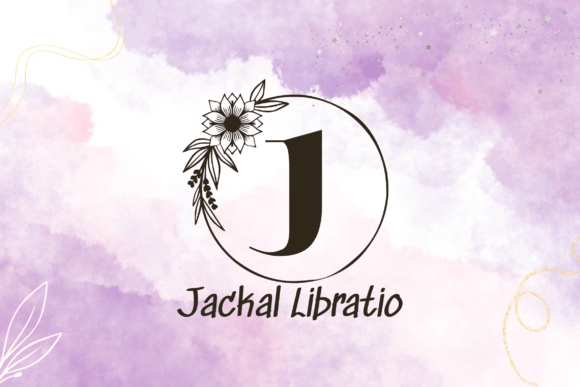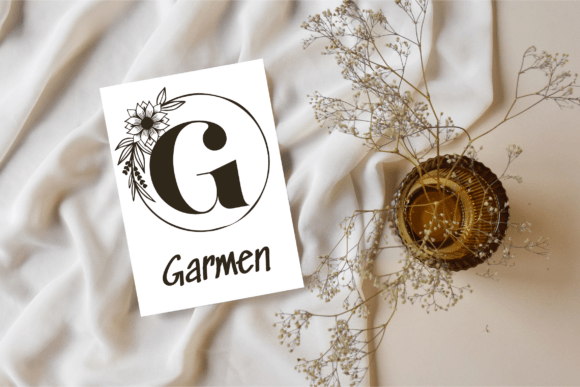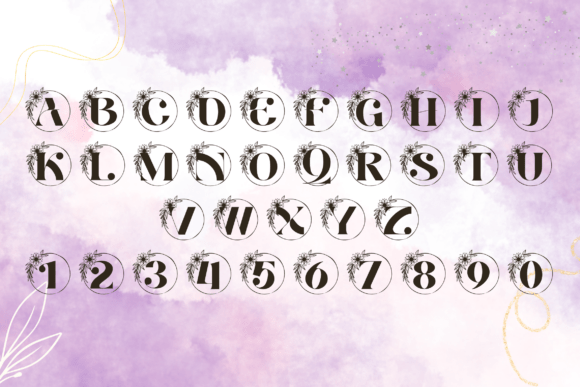
Aventine Floral Monogram Font: Elevate Your Designs with Timeless Elegance
In the world of typography, few fonts manage to capture the essence of luxury and sophistication as effortlessly as the Aventine Floral Monogram Font. This exquisite decorative font seamlessly blends the classic elegance of serif typography with the delicate beauty of botanical elements, resulting in a truly unique and captivating design tool. Whether you’re a professional designer, a crafty DIY enthusiast, or simply someone who appreciates the finer things in life, Aventine is sure to leave a lasting impression.
The Perfect Blend of Classic and Botanical
Aventine Floral Monogram Font is a masterful fusion of traditional serif typography and intricate floral embellishments. Each letter in the font is meticulously crafted to incorporate delicate botanical elements, adding a touch of whimsy and romance to the classic serif design. This harmonious blend of styles results in a font that exudes timeless sophistication and natural beauty, making it perfect for a wide range of applications.
One of the most exciting aspects of Aventine Floral Monogram Font is its versatility. This luxurious font can be used in a variety of design projects, including:
- High-end branding: Create luxurious logos, business cards, and letterheads that reflect your brand’s commitment to quality and sophistication.
- Wedding stationery: Add a touch of romance and elegance to your wedding invitations, save-the-dates, and thank-you cards.
- Initials-based logos: Design stunning monogram logos that make a lasting impression on your clients and customers.
- Elegant packaging: Elevate your product packaging with beautiful, custom typography that reflects your brand’s personality and style.
What Sets Aventine Apart
So, what makes Aventine Floral Monogram Font so special? Here are just a few features that set it apart from other decorative fonts:
- Intricate details: Each letter in the font is adorned with delicate floral embellishments, adding a level of intricacy and sophistication to your designs.
- Timeless elegance: Aventine’s classic serif design ensures that your designs will remain stylish and relevant for years to come.
- Natural beauty: The botanical elements in the font bring a touch of natural beauty to your designs, adding warmth and personality to your typography.
Tips for Using Aventine Floral Monogram Font
To get the most out of Aventine Floral Monogram Font, here are a few tips to keep in mind:
- Use it sparingly: Aventine is a statement font, so use it sparingly to add emphasis and elegance to your designs.
- Experiment with colors: Try pairing Aventine with different colors and textures to add depth and interest to your designs.
- Mix and match: Combine Aventine with other fonts and design elements to create unique and visually appealing compositions.
Aventine Floral Monogram Font is a truly exceptional design tool that offers a unique blend of classic elegance and natural beauty. With its intricate details, timeless sophistication, and endless design possibilities, Aventine is the perfect choice for designers, crafters, and anyone looking to add a touch of luxury to their projects. Whether you’re creating high-end branding, wedding stationery, or elegant packaging, Aventine Floral Monogram Font is sure to elevate your designs to new heights.